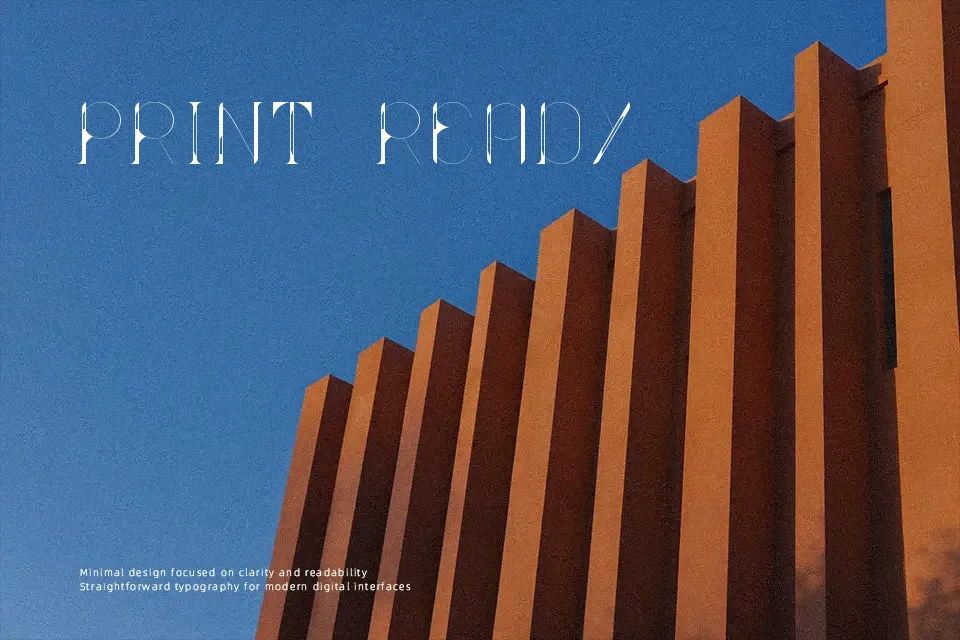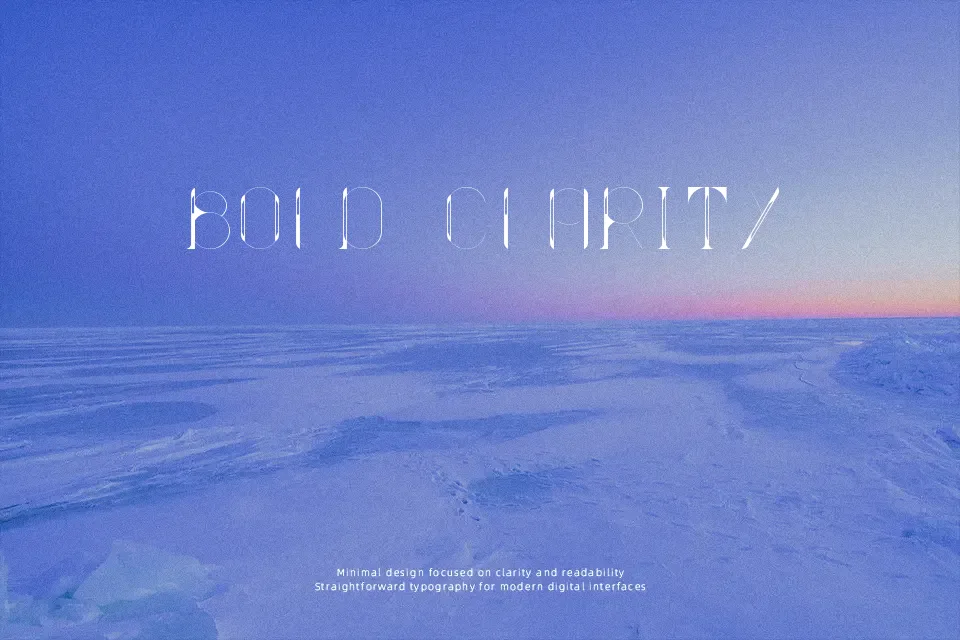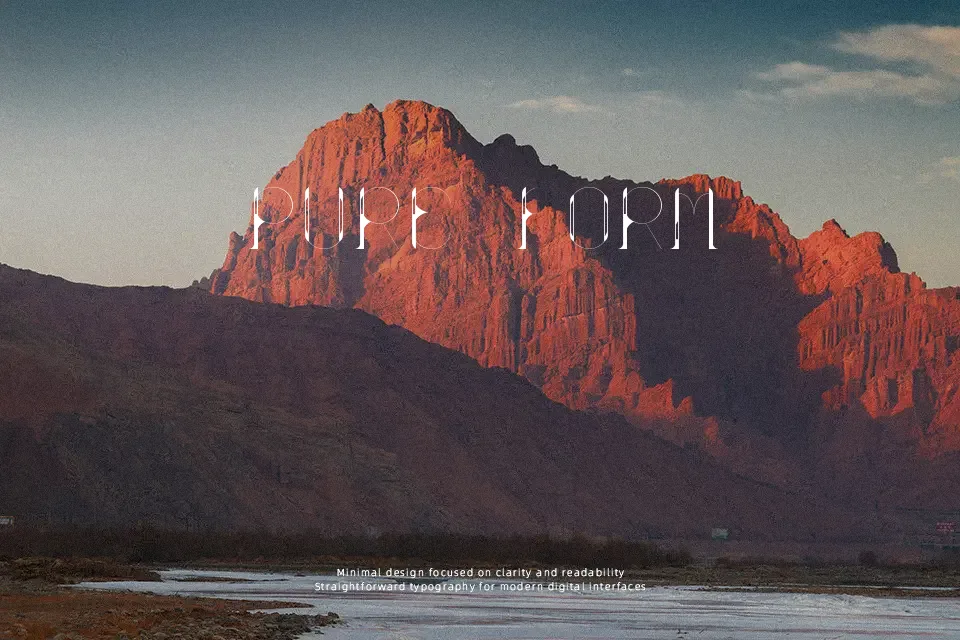
Ballo Font
Designed by Arielle Peacock
Ballo leans into a modern, geometric structure, mixing straight segments with abrupt curves and angled terminals for a distinctly artistic voice. Strokes shift in thickness, so letters feel energetic rather than mechanical, while spacing stays relatively even to keep short words and titles readable. Its character makes it work when you need a striking logo, gallery poster, or experimental landing page header that signals creativity more than strict professionalism. On the downside, the busy shapes can feel tiring in longer text or dense layouts, and conservative brands may find it too unconventional. It shines in tight, visual-first compositions, but falls short when you need quiet, neutral typography.
bold branding wordmarks
art-driven event posters
experimental website hero text
formal corporate reports
small-size UI labels
highly traditional brands
Perfect for advertising, branding, and headline, with a artistic and decorative style.